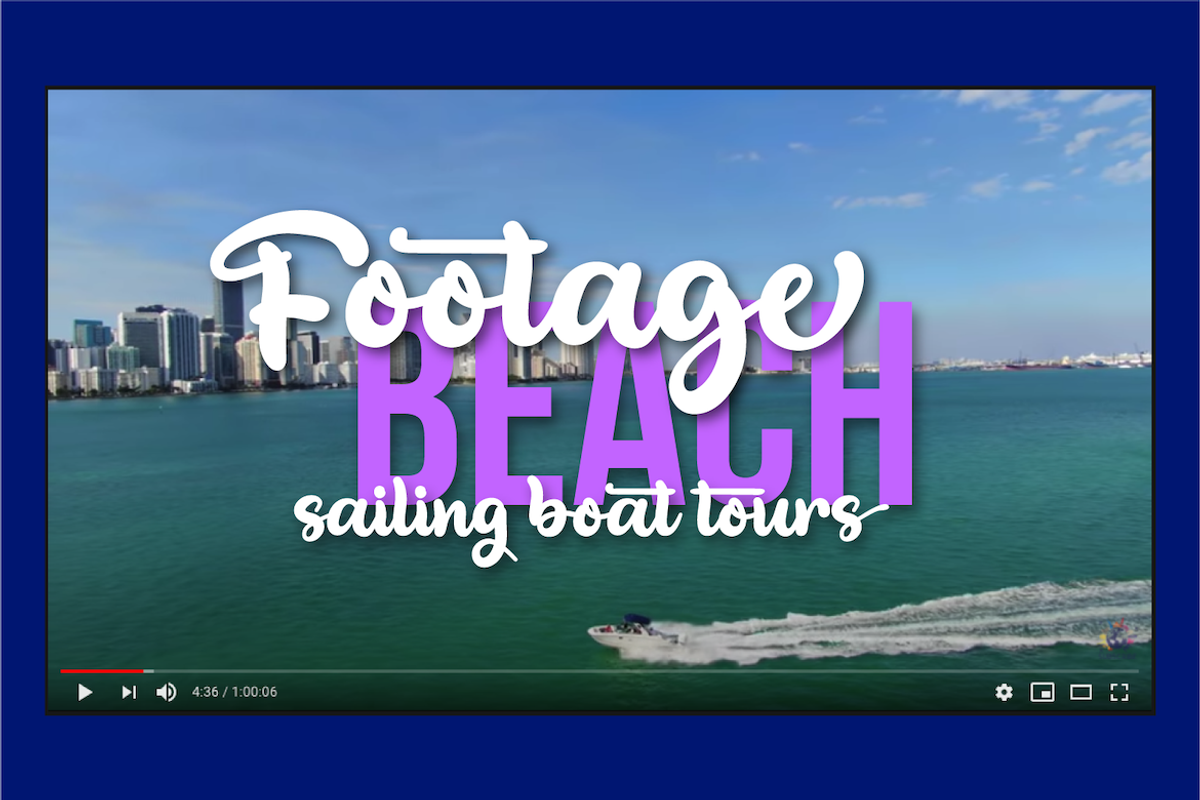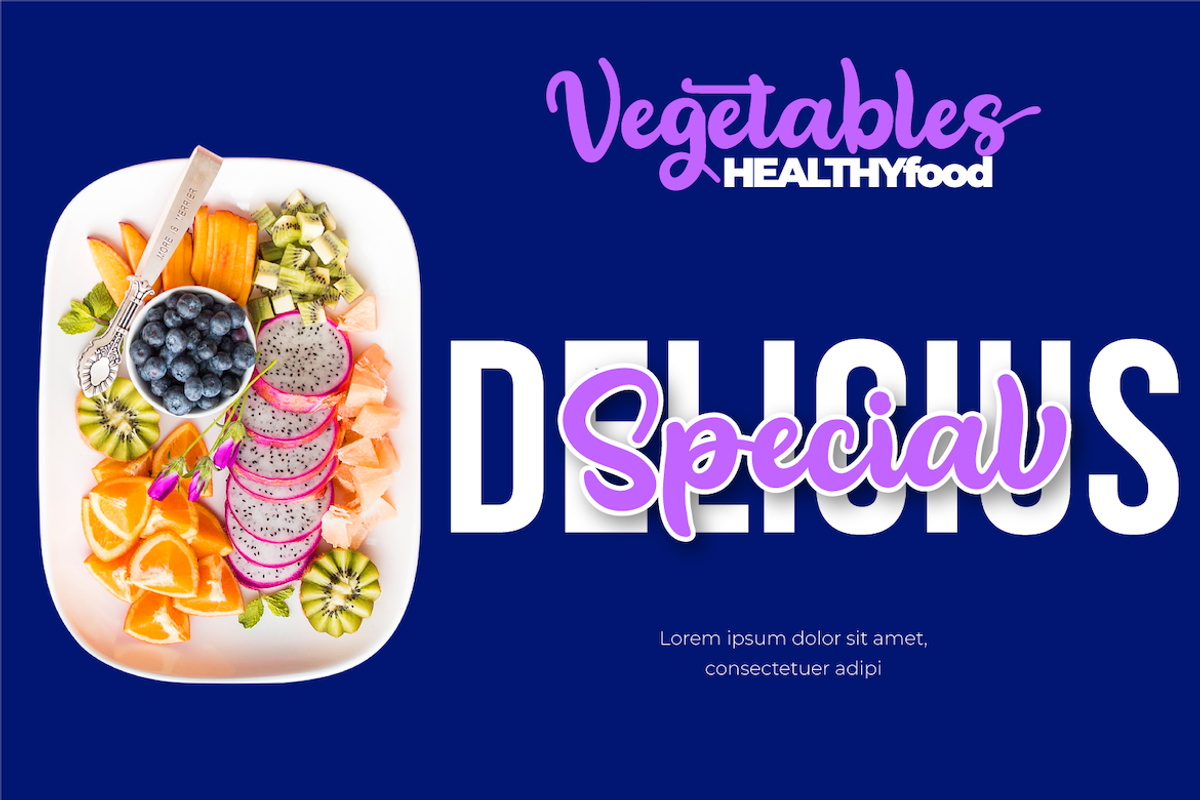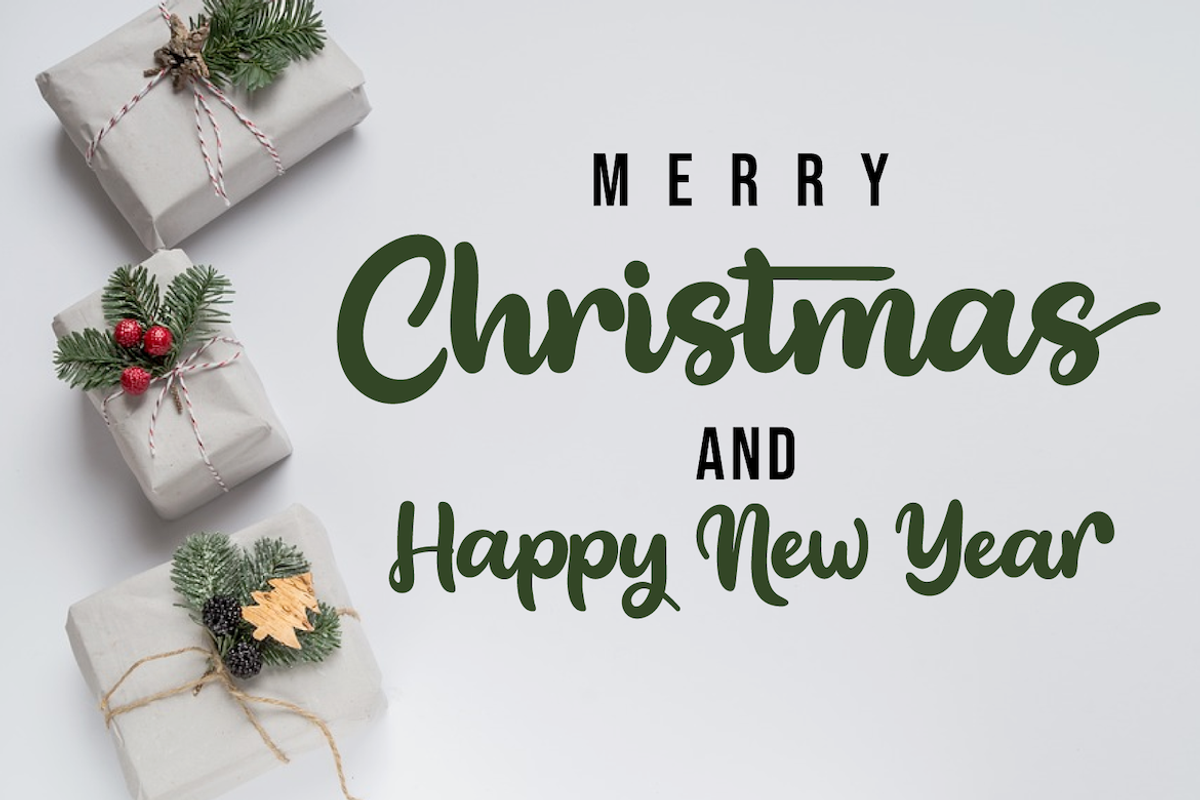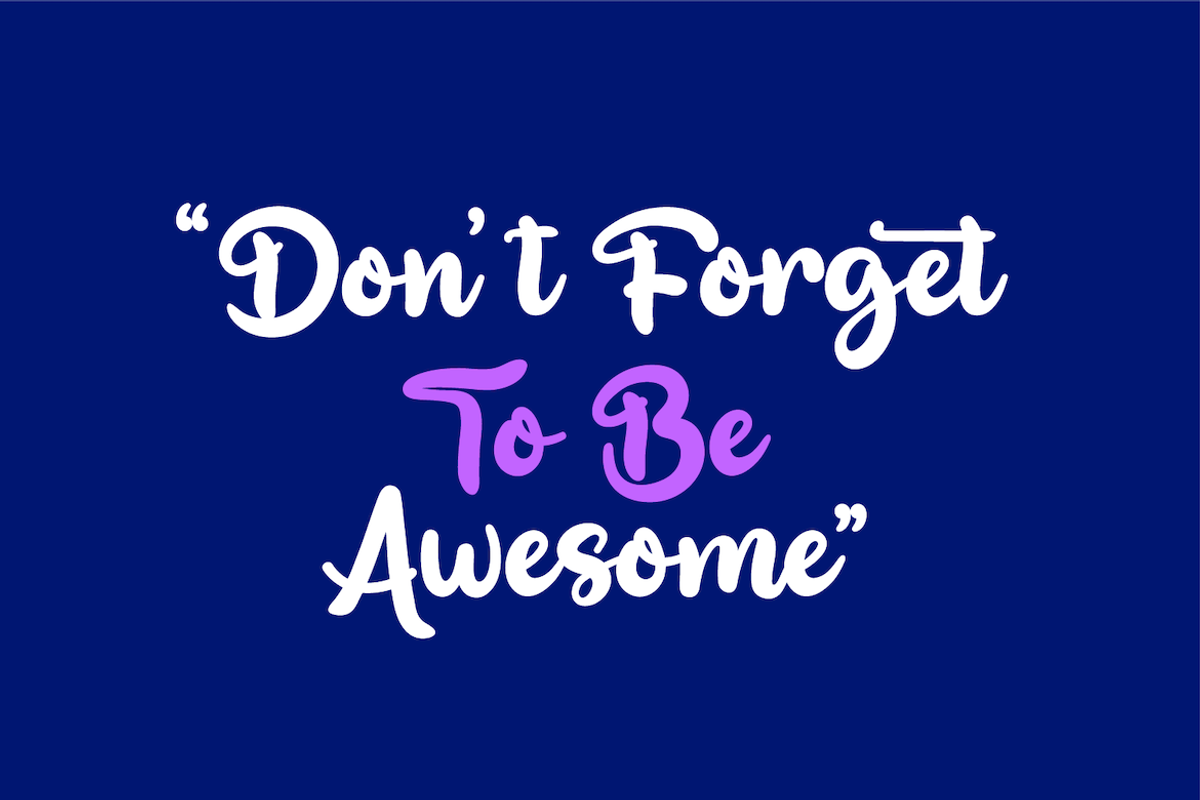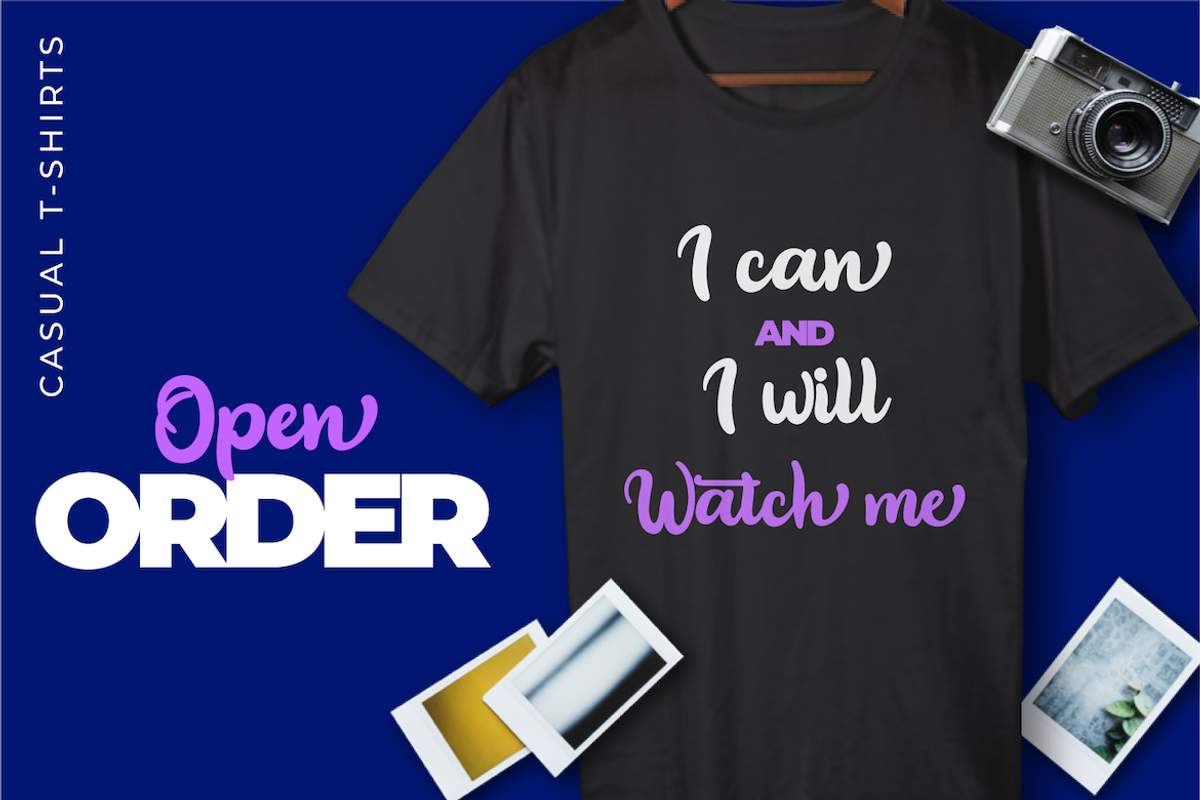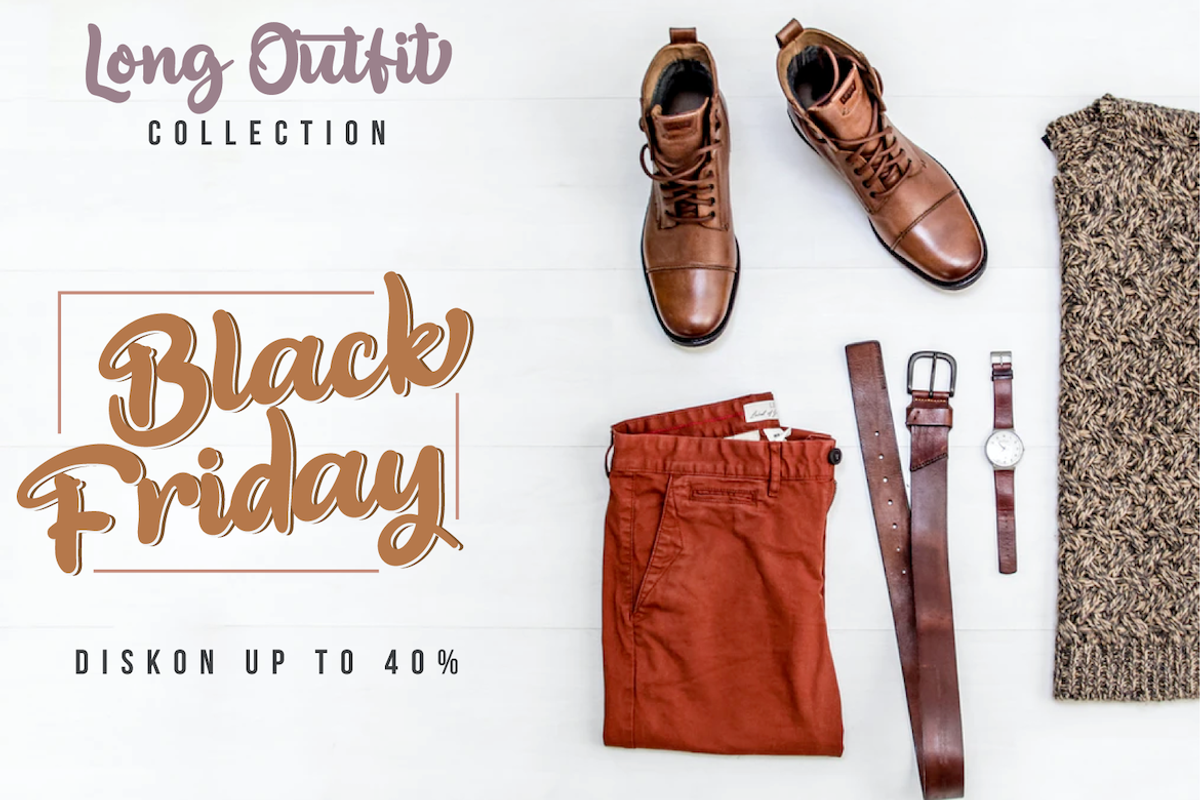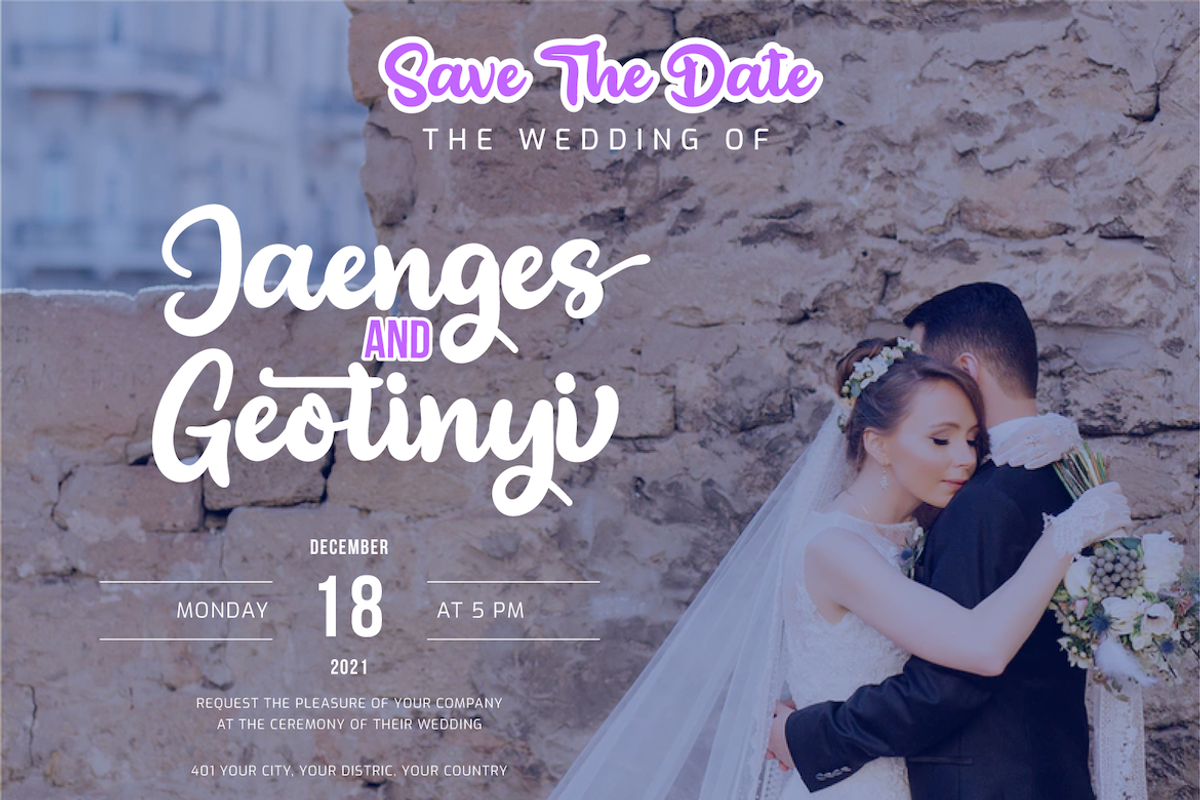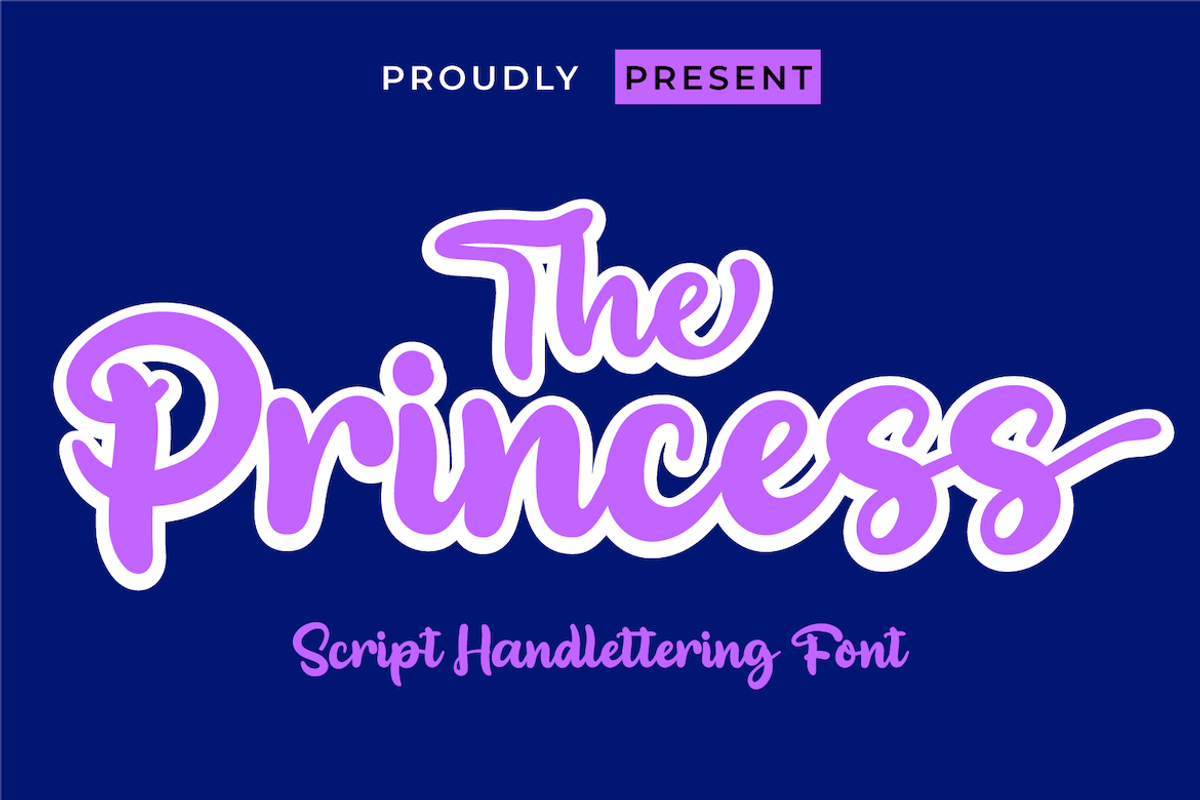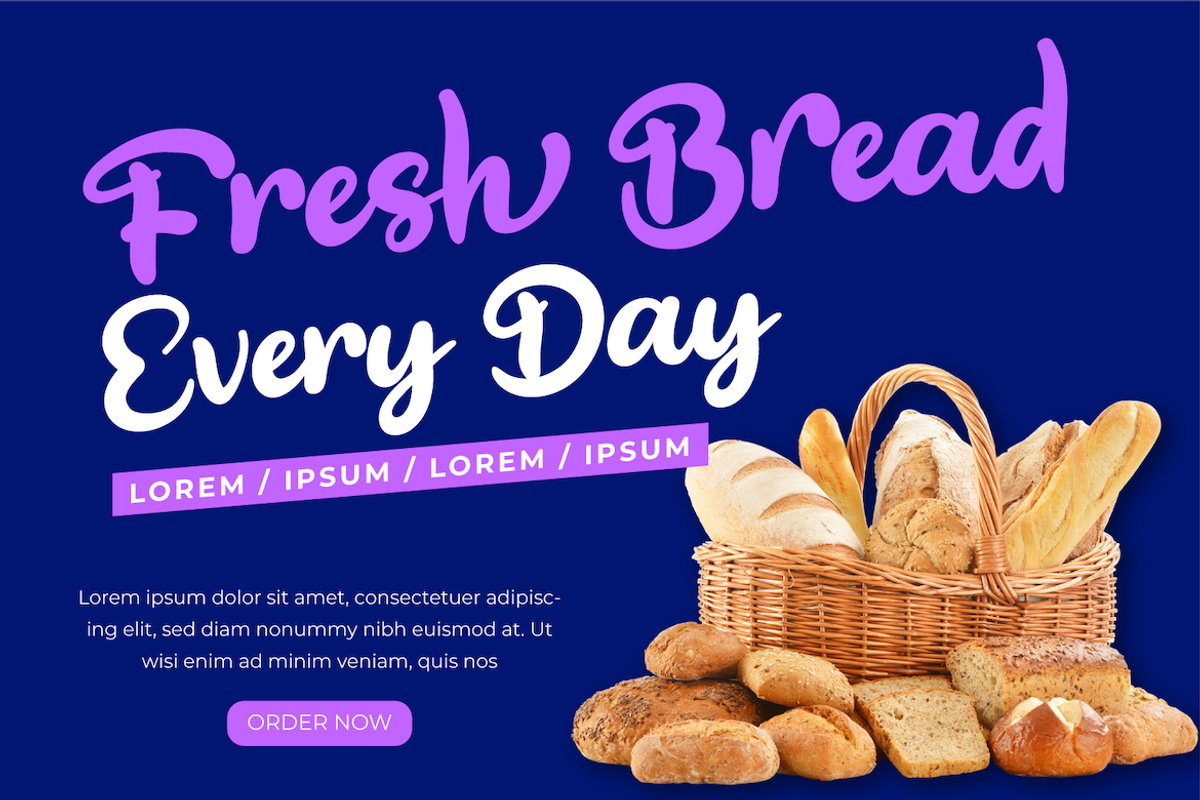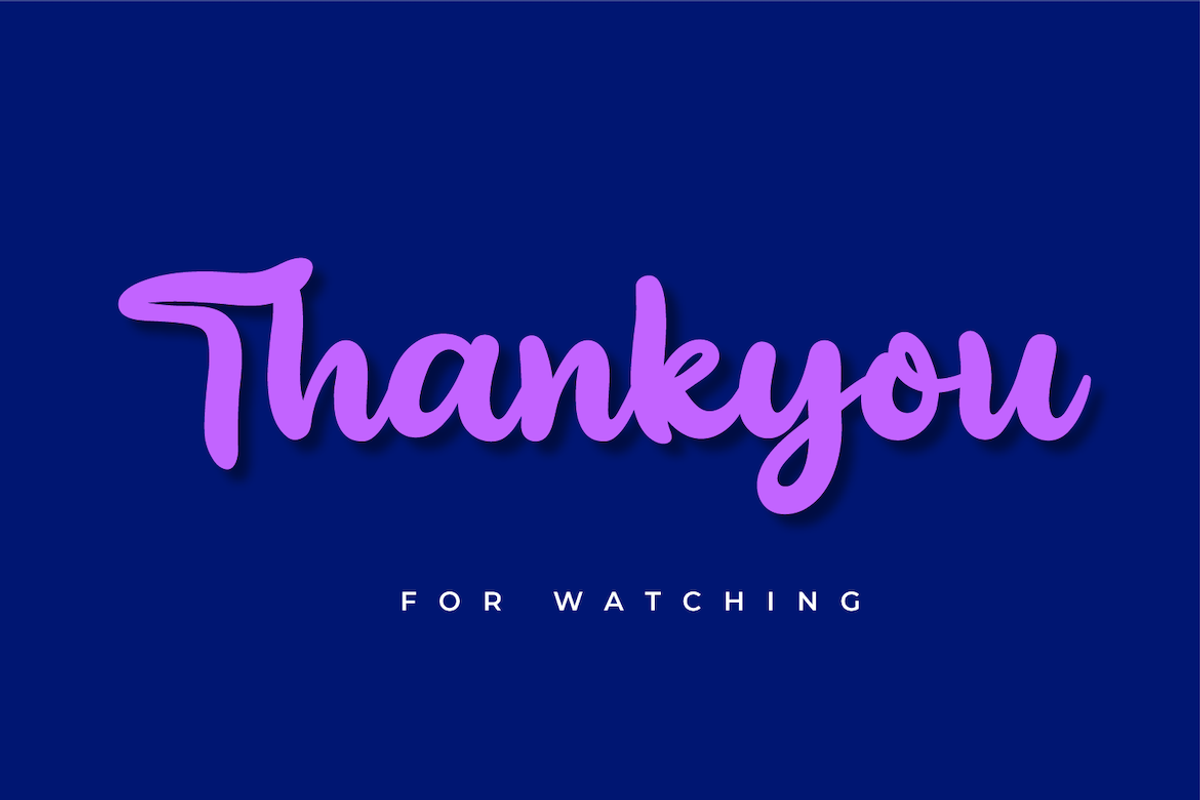
The Princess
The Princess is our newest font.
This font is written in deep and dramatic handwriting. Each letter has a unique and beautiful character to be used as a title, word, or sentence, which looks good and beautiful in every display design you make.
Not limited to that, the bold calligraphy font is designed to keep paying attention to the beauty of each letter, there are alternate options for the letters which are certainly easy for you to access, so you can automatically customize the letters you want to enhance the visual appearance of your design project.
This charming font also offers the beauty of abstract typography harmony for a wide variety of design projects, including digital natural handwriting for designs, quote designs, for social media business designs, advertisements, trademarks, food and beverage promotion banners, text, posters, a signature, and all designs require handwriting or whatever design you want.